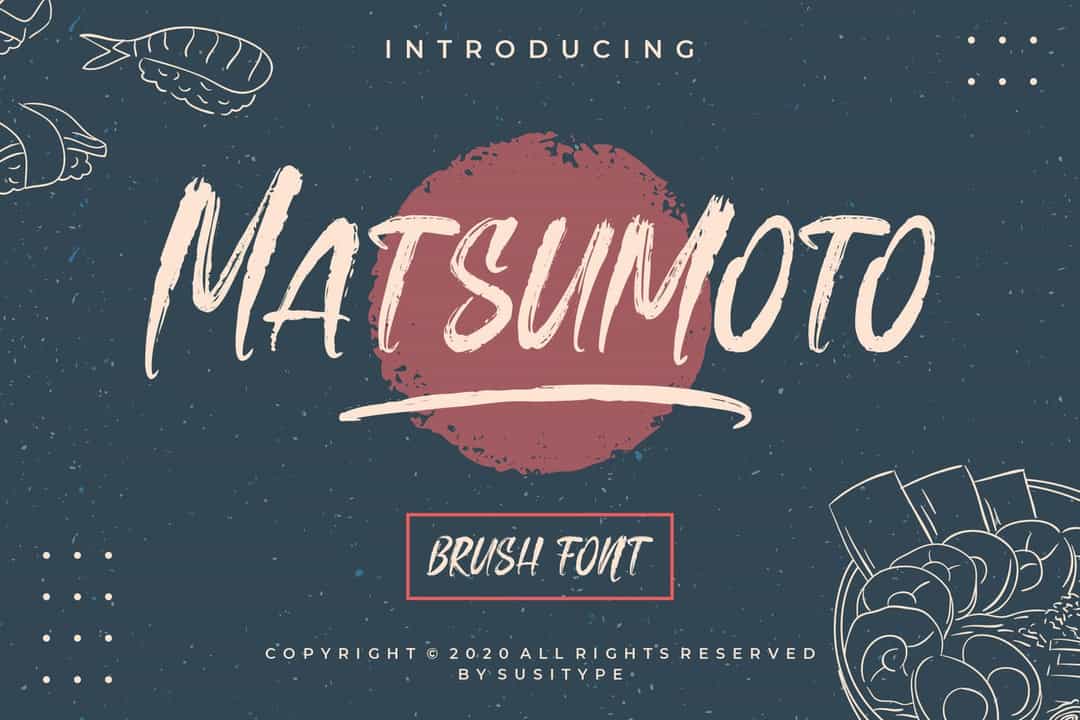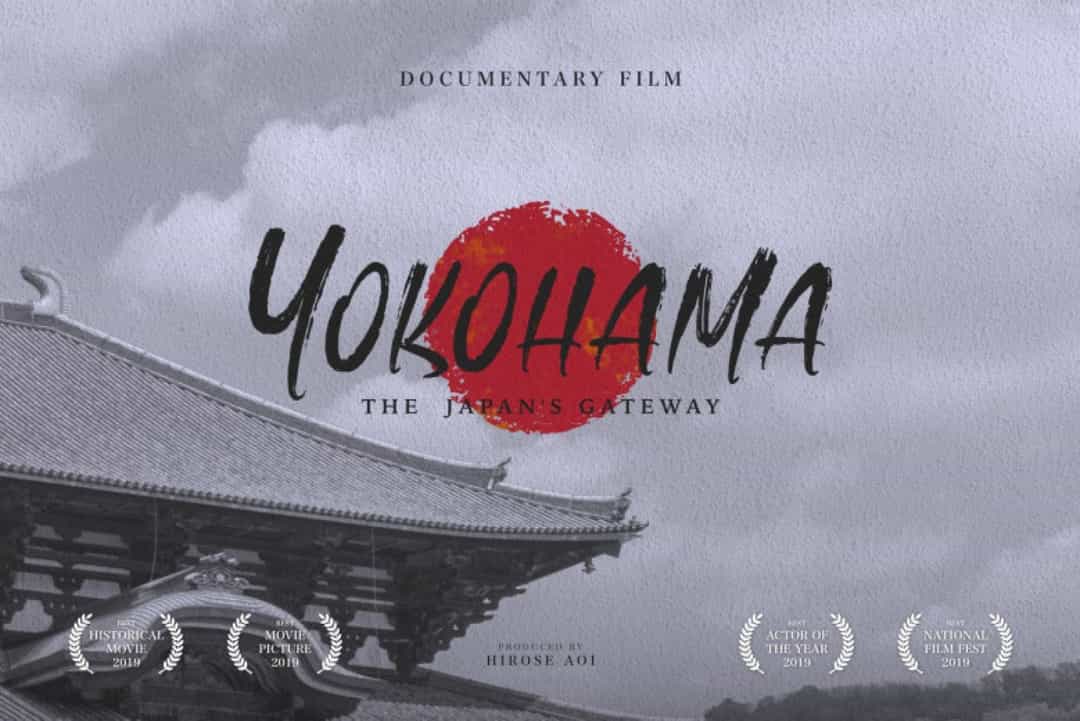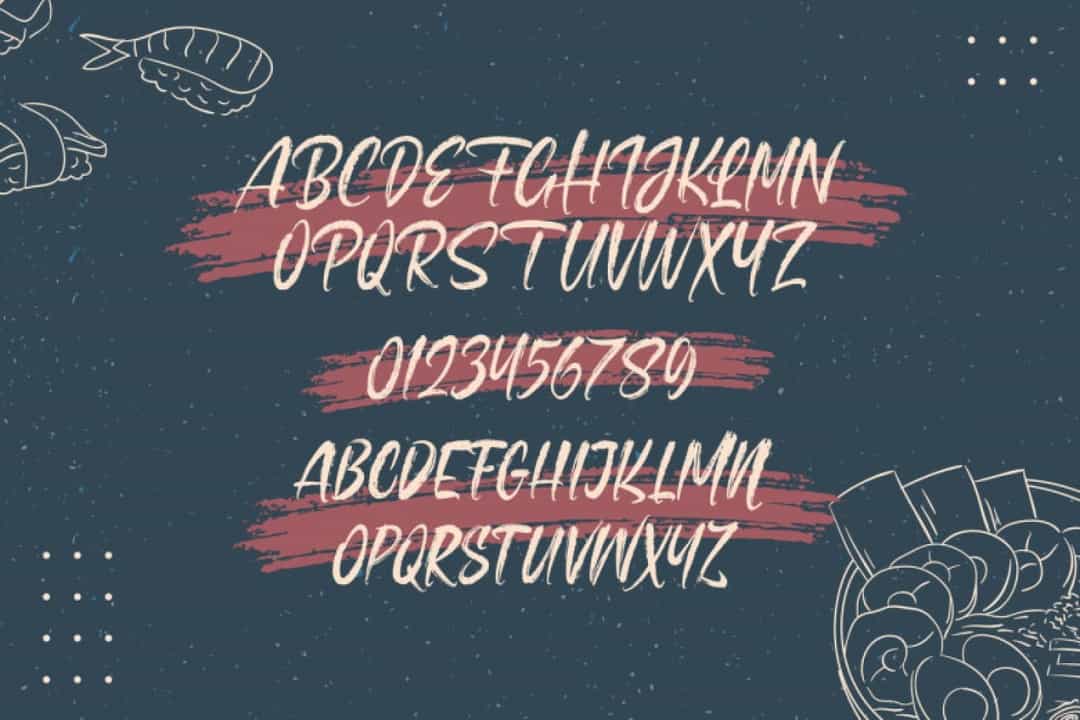
Matsumoto, written by hand using a dry brush font with raw dry brush texture is designed for any project that calls for it. Inspired by Japanese aesthetic, it makes an impactful statement and can easily fit in with any Japanese-themed theme. Access to brush swooshes can be gained by looking at alternate characters 0-9.